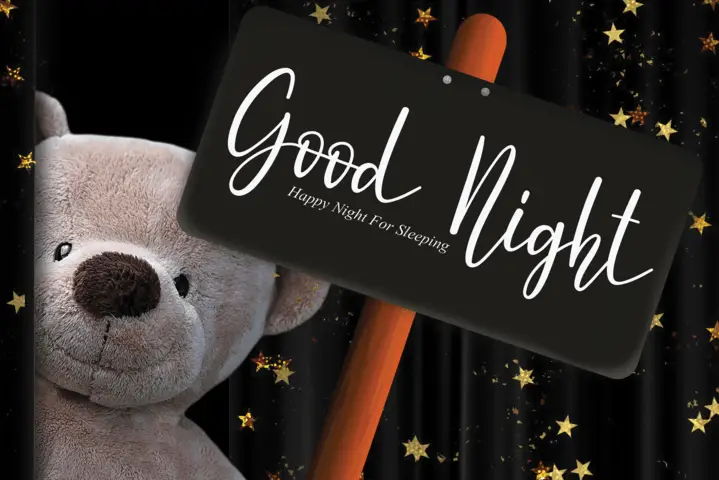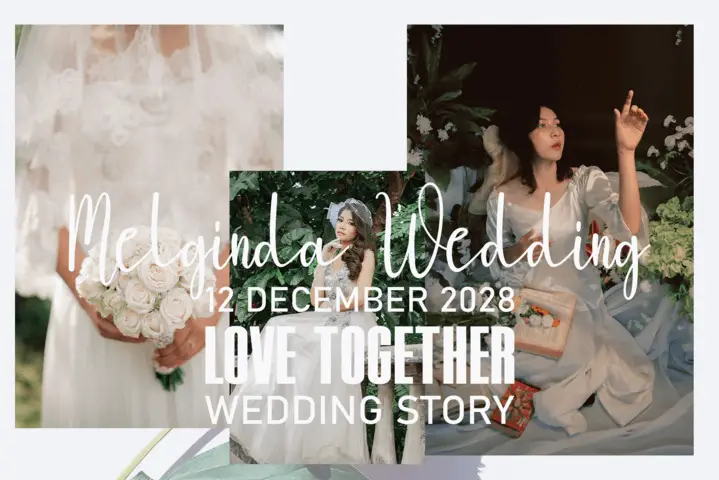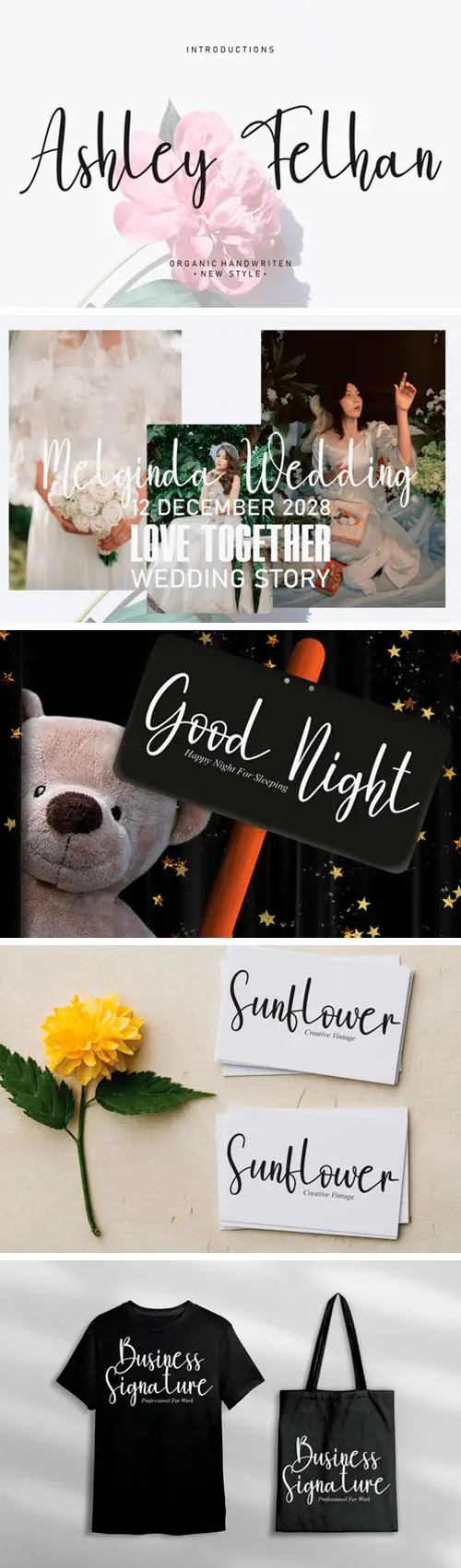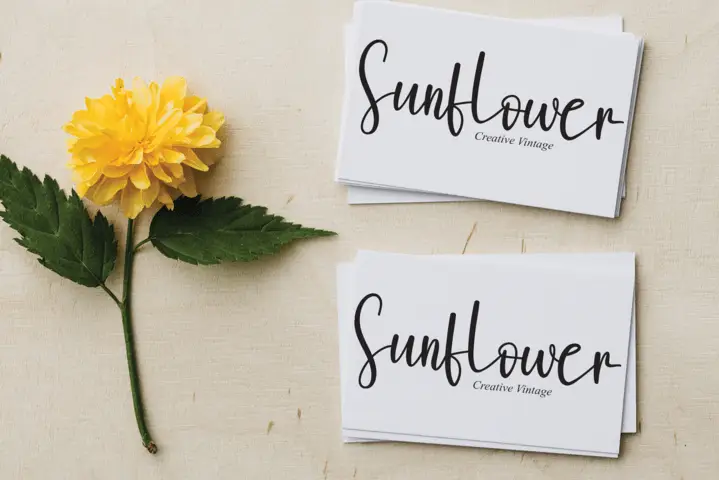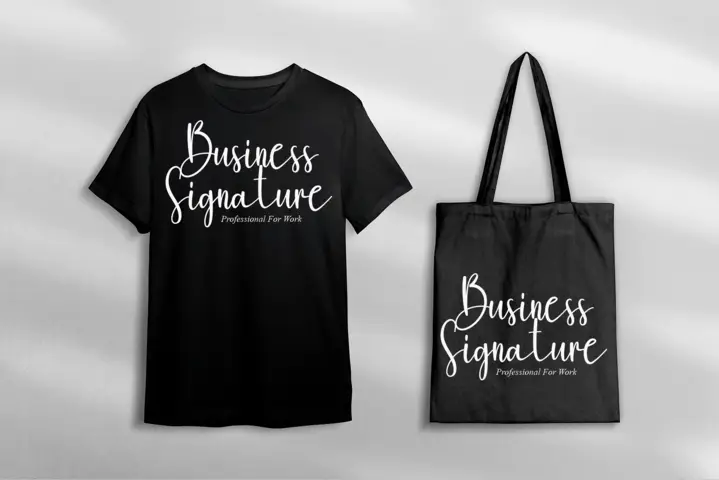
Ashley Felhan Script Font
The Ashley Felhan Script Font is a beautifully crafted typeface that embodies elegance and fluidity. With its unique cursive style, this font is perfect for adding a personal touch to your projects.
This font is ideal for branding, logos, invitations, and any print or web design that requires a touch of sophistication. Use it to create stunning visuals that stand out.